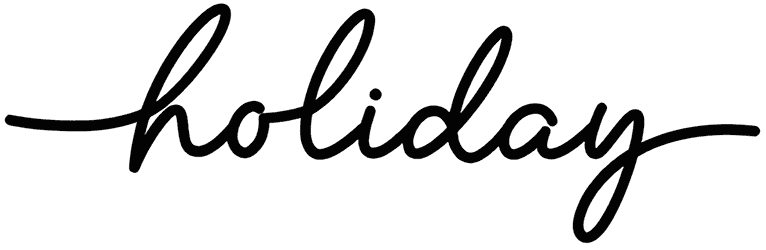
Basella Font
For many designs, whether formal or informal, a special calligraphy font can promote them. Basella is a signature font with a delicate and modern vibe. No offer for numbers or punctuation marks, Basella can be used for many projects, namely planners, invitations, business cards, and so on, and gives them an elegant vibe.